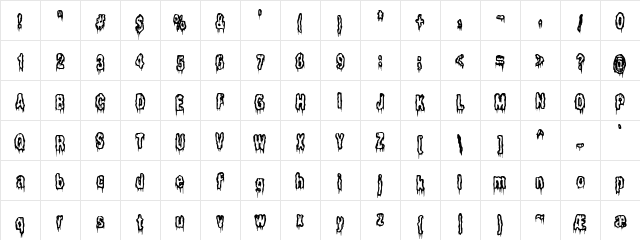
It Lives In The Swamp BRK Regular
Design Context for It Lives In The Swamp BRK
It Lives In The Swamp BRK is a composed and adaptable typeface that performs quietly and consistently across a wide range of design contexts.
Pro Tip: Use It Lives In The Swamp BRK in both headline and body roles to test its range before committing to a single application.